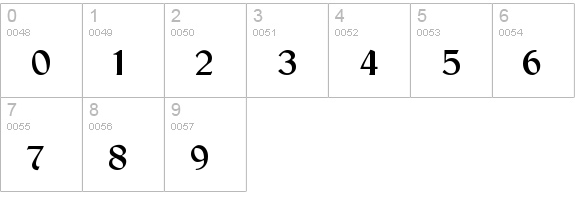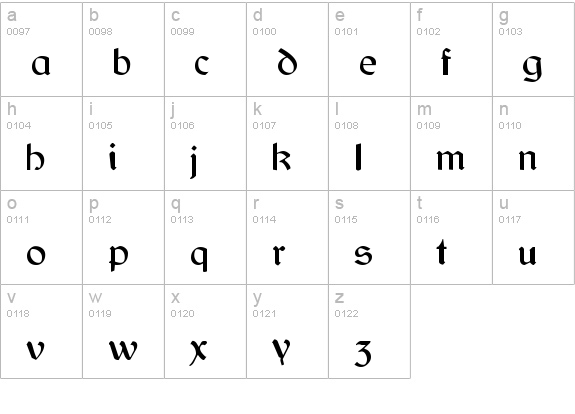
BretagneGaelic Font Details
BretagneGaelic font is a stunning typeface that combines traditional Gaelic influences with modern design elements, resulting in a unique and eye-catching aesthetic. With its intricate details and elegant curves, this font is perfect for adding a touch of sophistication to your projects. What makes BretagneGaelic font even more appealing is that it is completely free to download at FontsMarket.com. This means you can easily access this beautiful font and use it in your designs without any cost. Whether you're working on a logo, branding materials, invitations, or any other creative project, BretagneGaelic font will surely elevate the overall look and feel. Don't miss the opportunity to enhance your designs with this exquisite font – download BretagneGaelic today and let your creativity shine!